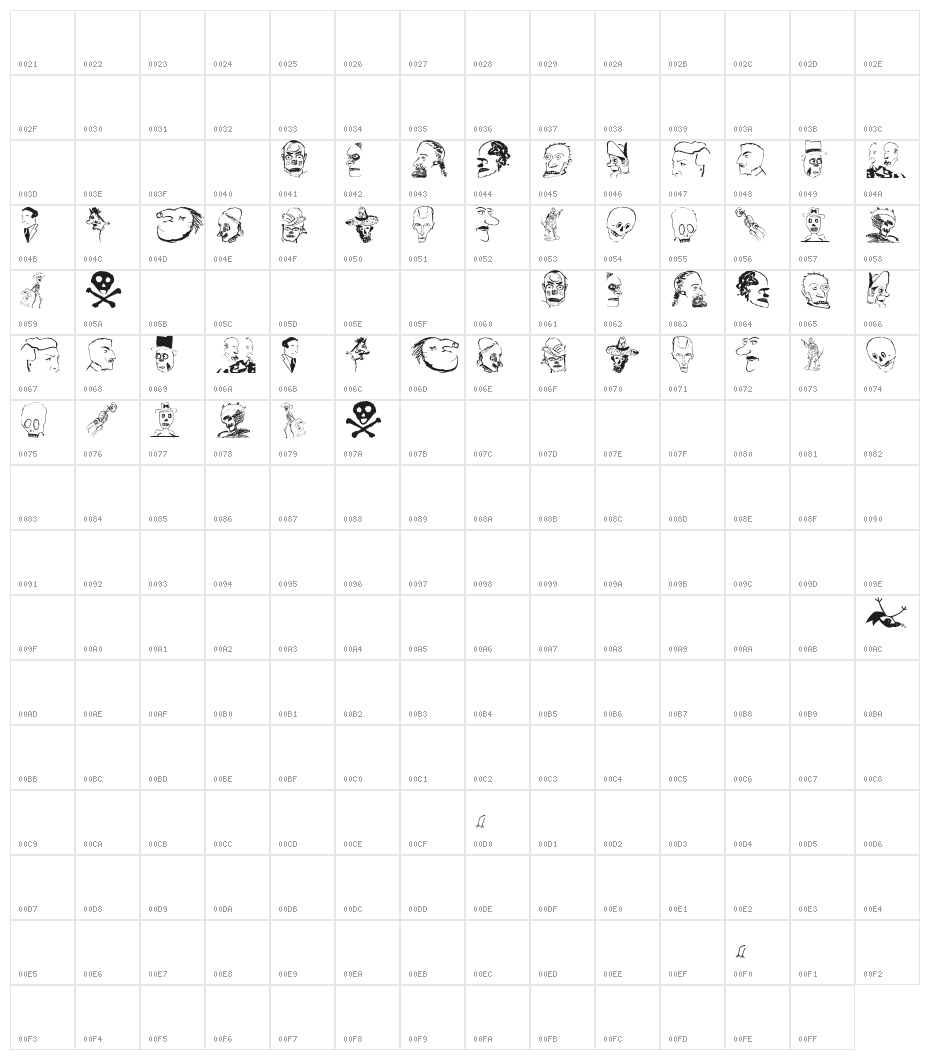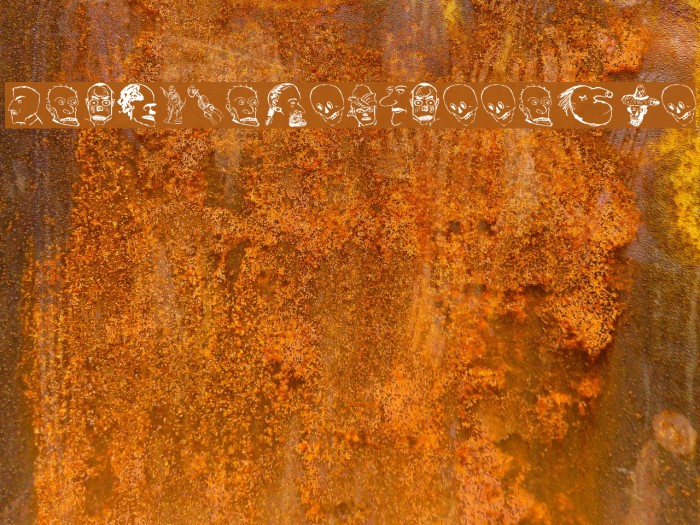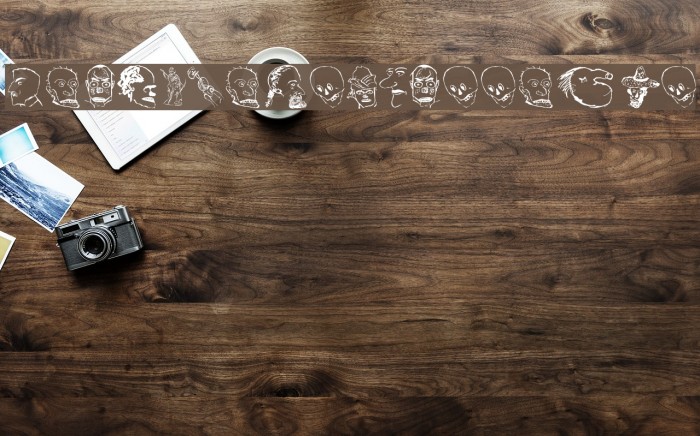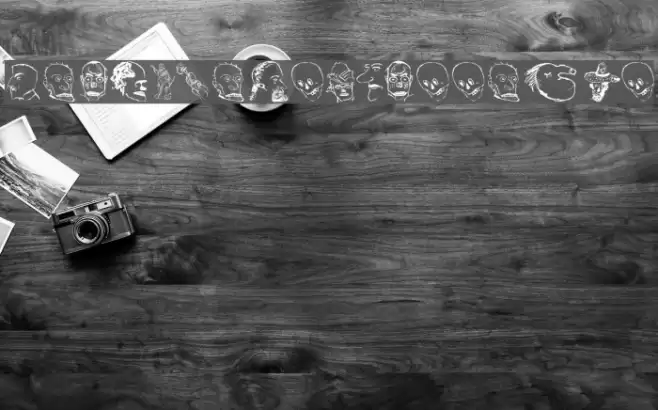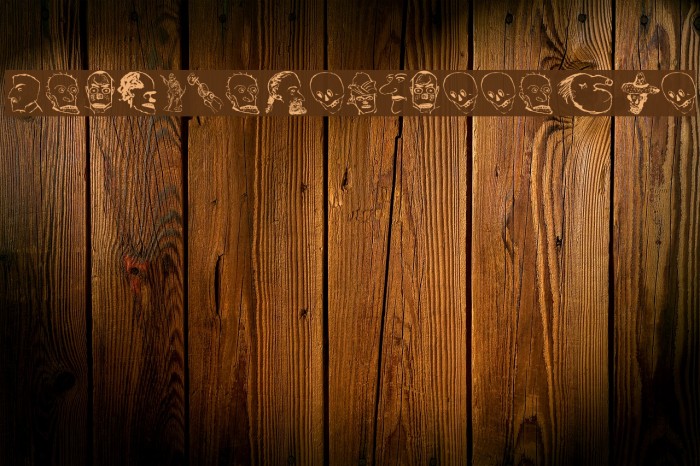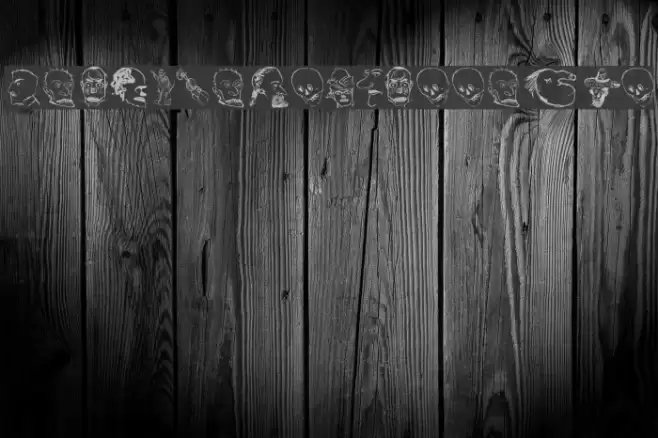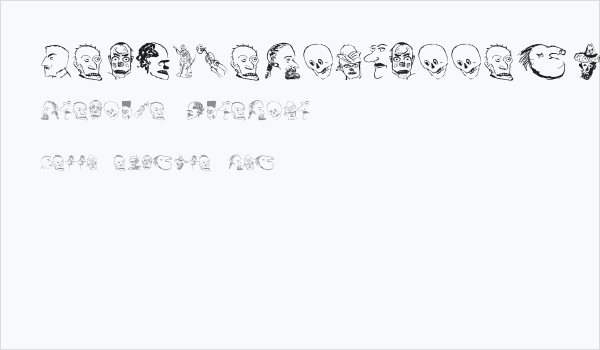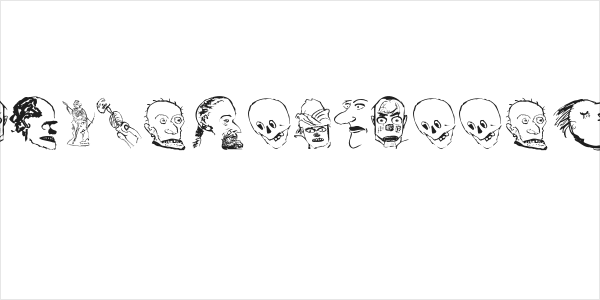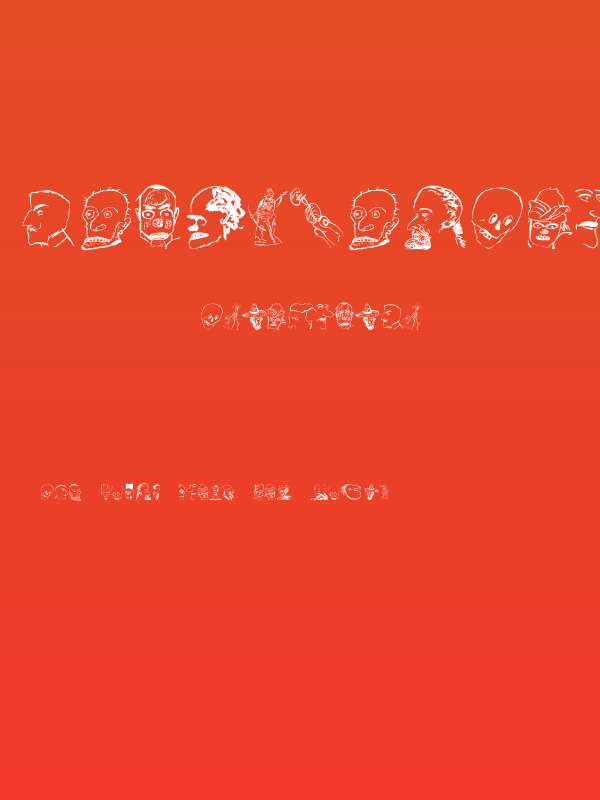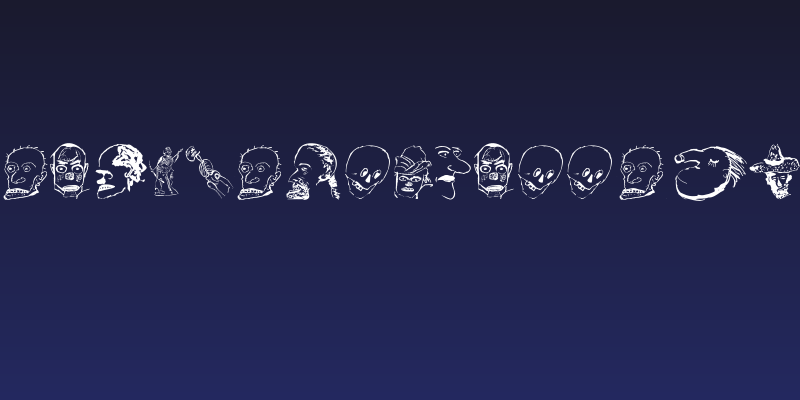
HeadsVectorAttempt Font
HeadsVectorAttempt Description
A highly decorative and illustrative font composed of hand-drawn, cartoonish heads and faces for each character, featuring a mix of human, animal, and skull motifs with playful and exaggerated expressions. The glyphs are bold, irregular, and visually distinct, prioritizing artistic flair over legibility.
Overall StyleDecorative, Whimsical, Artistic
Use CaseLogos, Headlines, Posters, Artistic projects
Proposed ProjectsPosters, album covers, comic titles, party invitations, alternative zines, creative branding.